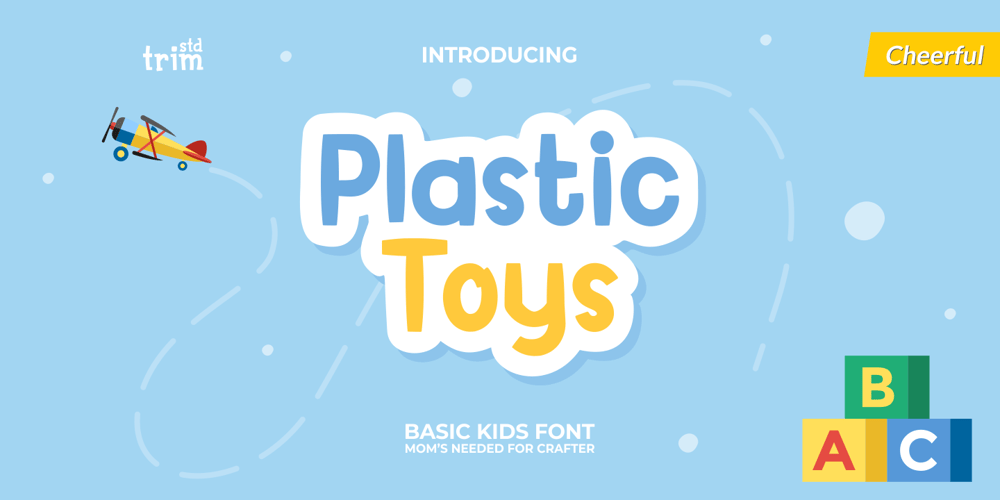
Plastic Toys Font Family was designed by Deri Kurnia and published by Trim Studio. Plastic Toys contains 1 styles and family package options. Plastic Toys is a basic display font for mom and kids crafter. It created to complete the normal type of font but need a playful and plasticy feel that crafter always needed. because of it feels, you can mix and match this style with various handbrush and normal strong font to get the feel of what your design neededIts perfectly suited for crafter and graphic artist to complete their design such as invitation, advertisement, poster, logo, birthday, product sign, and many more!Plastic Toys Font also Lightweight, even so contains All Standard glyphs and punctuations